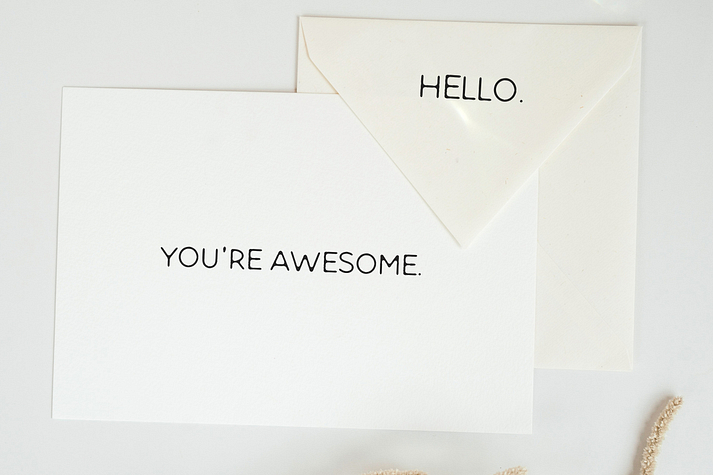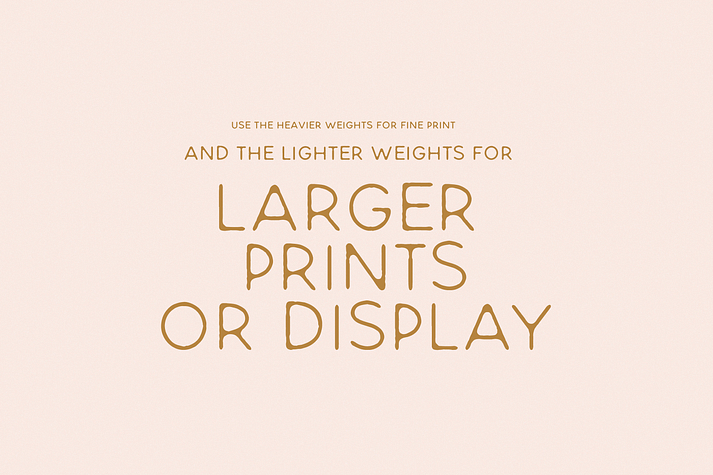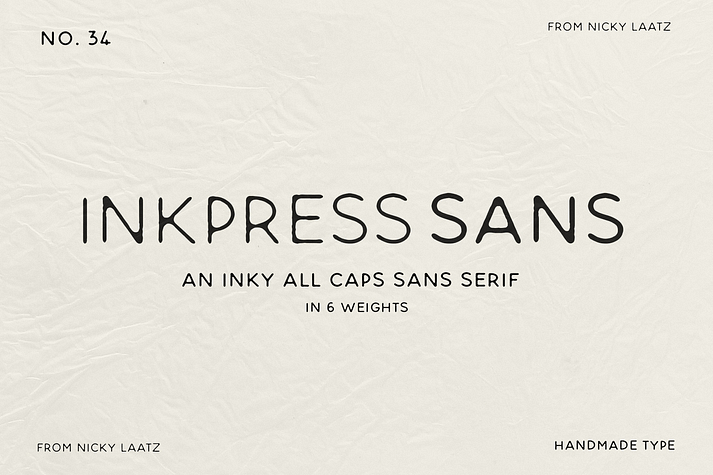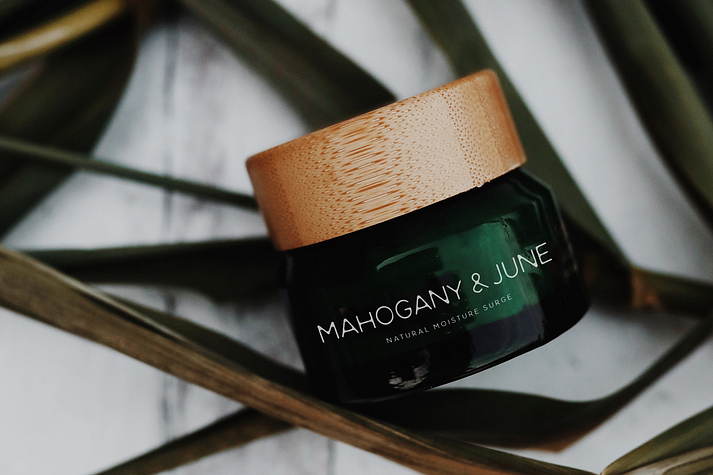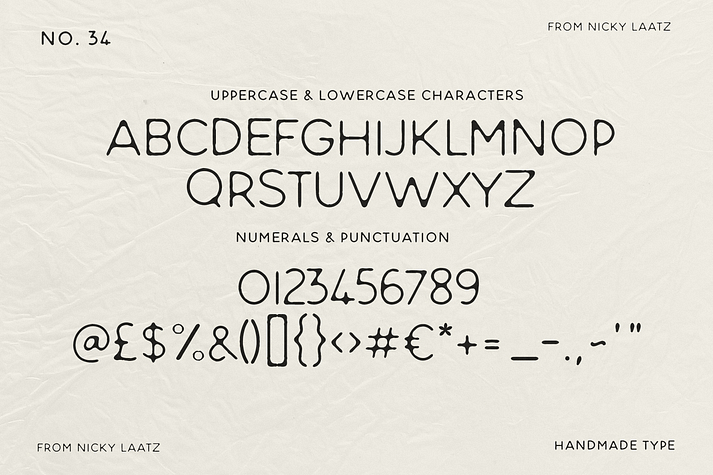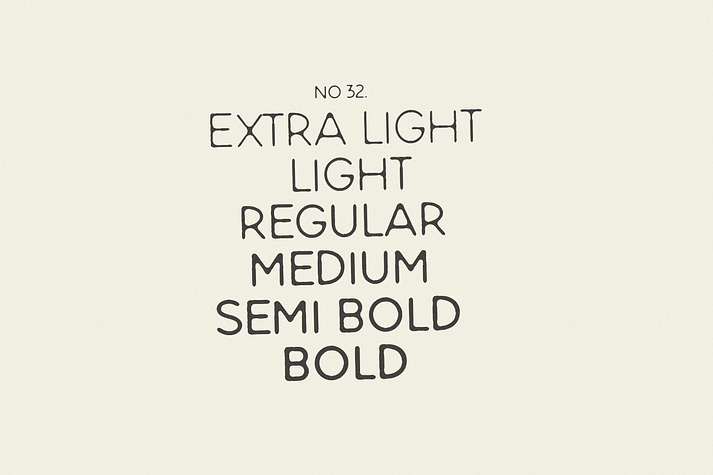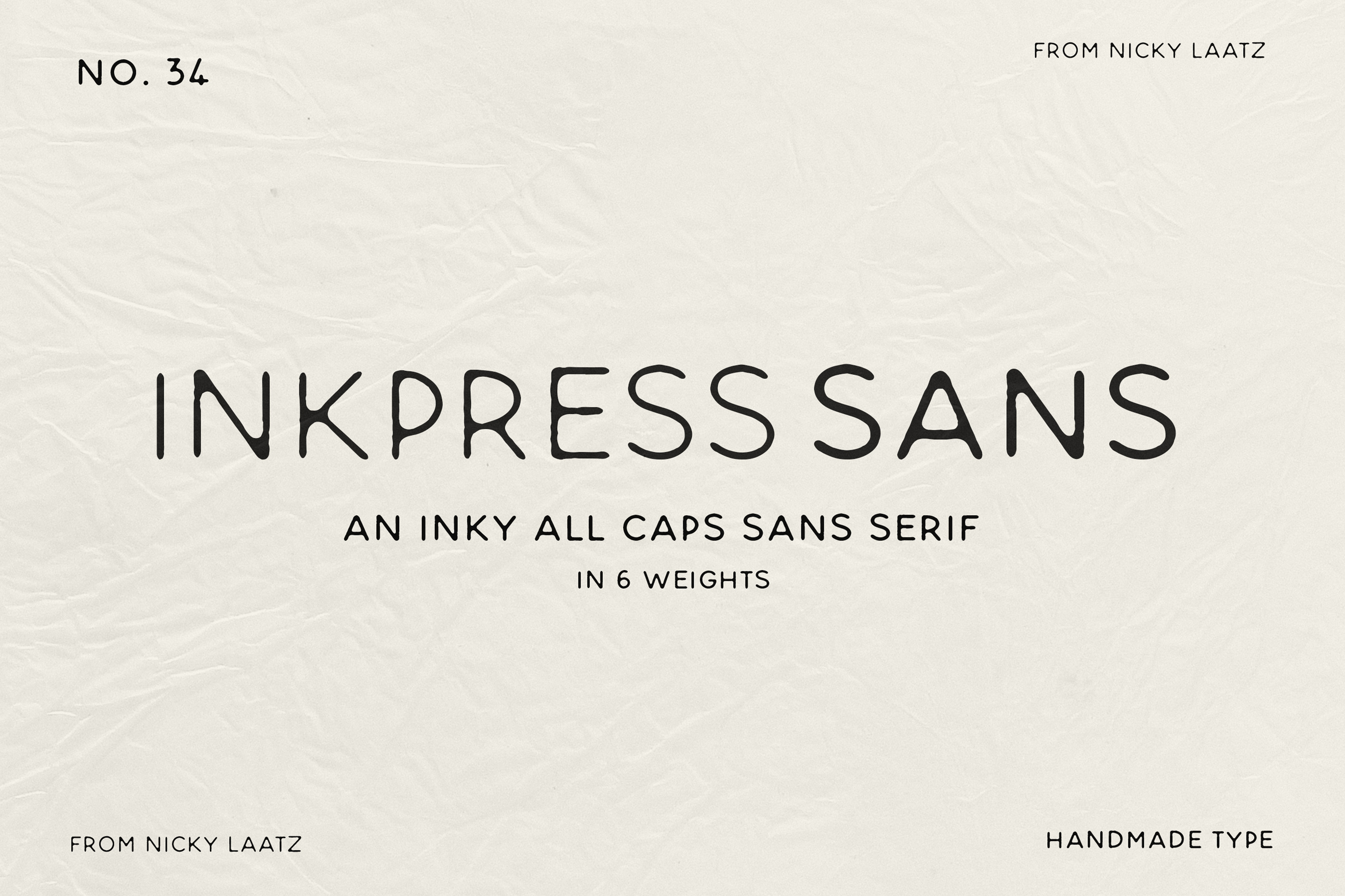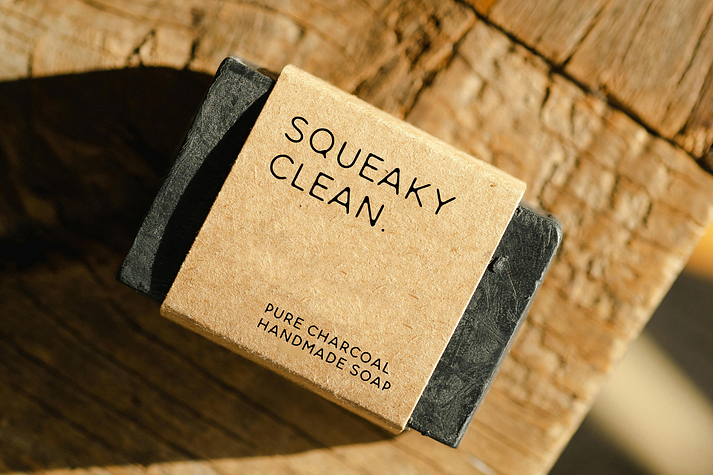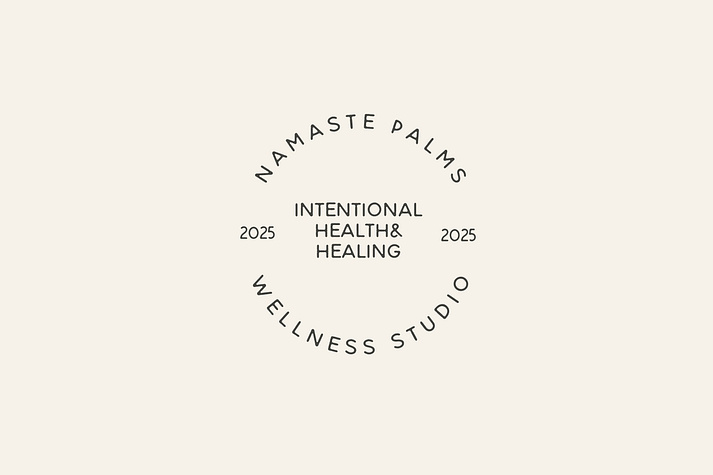
Inkpress Sans Demo
Inkpress Sans Demo is a display sans and hand drawn font family. This typeface has six styles and was published by Nicky Laatz.
Say hello to Inkpress Sans - an all-caps ‘inky’ typeface, with slightly irregular and fluid outlines, which emulate a freshly stamped print effect. Inkpress Sans has a bold and impactful feel, but with a modern and clean aesthetic.
Available in 6 weights - Extra Light to Bold.